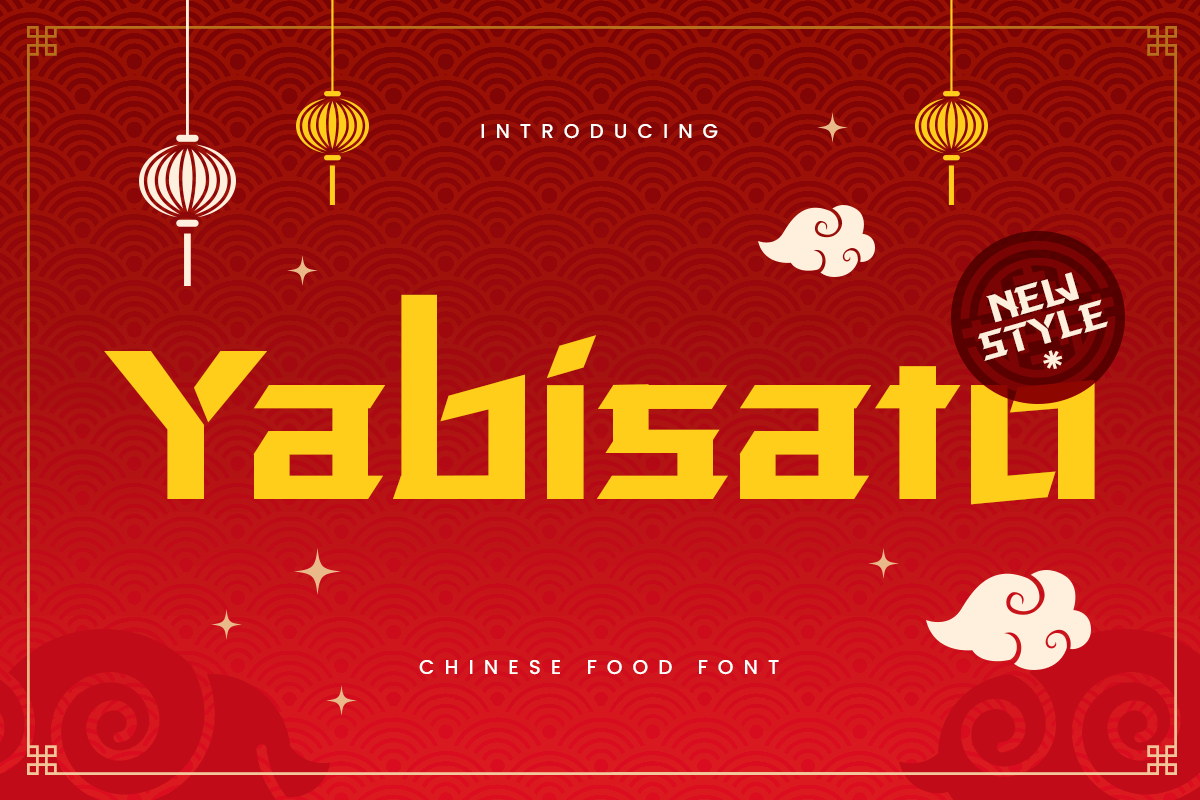
Yabisato
-Chinese FontIntroducing Yabisato, a font inspired by the rich culture and festive spirit of Chinese New Year. Perfect for projects that celebrate Chinese heritage and cuisine, Yabisato combines traditional elements with modern elegance to bring your designs to life.
The Story Behind Yabisato:
Yabisato was created to capture the essence of Chinese festivals and culinary delights. Imagine the vibrant streets filled with lanterns, the aroma of delicious food, and the joyous celebrations of Chinese New Year. This font embodies that festive atmosphere, offering a unique blend of tradition and modernity. Yabisato is ideal for designers who want to infuse their work with the beauty and elegance of Chinese culture.
Yabisato Font Features:
Cultural Design: Inspired by traditional Chinese calligraphy and festive motifs.
Elegant Aesthetic: Combines classic elements with modern elegance for a stylish look.
Versatile Usage: Ideal for menus, invitations, branding, posters, and festive designs.
High Legibility: Clear and readable, ensuring your message is communicated effectively.
Festive Appeal: Perfect for celebrating Chinese New Year and other cultural events.
Inspirational Previews: Includes sample designs to spark your creativity.
Perfect For:
Festive Branding: Create elegant and memorable logos for Chinese New Year events and businesses.
Cultural Celebrations: Design eye-catching posters, flyers, and promotional materials for festive occasions.
Restaurant Menus: Develop stylish and traditional menus for Chinese restaurants and food events.
Invitations and Cards: Enhance invitations, greeting cards, and decor with a touch of cultural elegance.
With Yabisato, your designs will celebrate the beauty and richness of Chinese culture. Whether you're working on festive branding, cultural celebrations, or restaurant menus, Yabisato provides the perfect blend of tradition and modern elegance. Elevate your design projects with Yabisato and bring the spirit of Chinese New Year to your work.